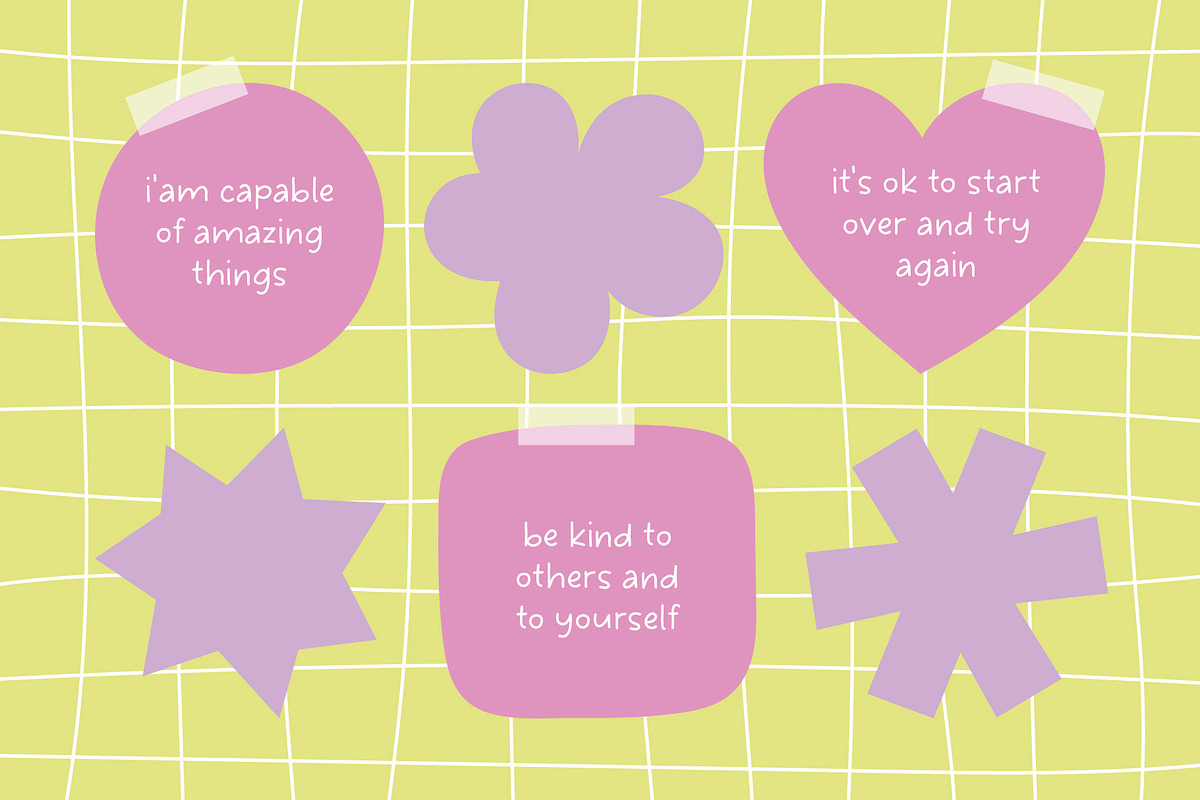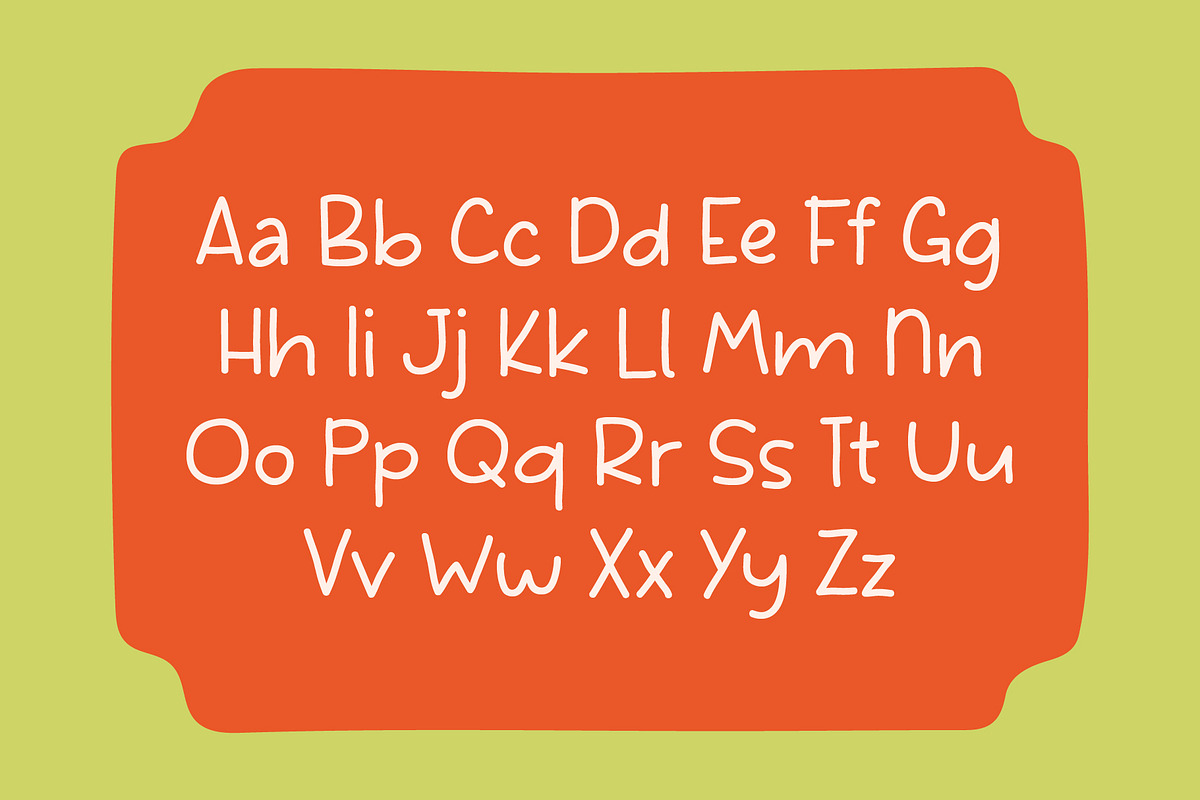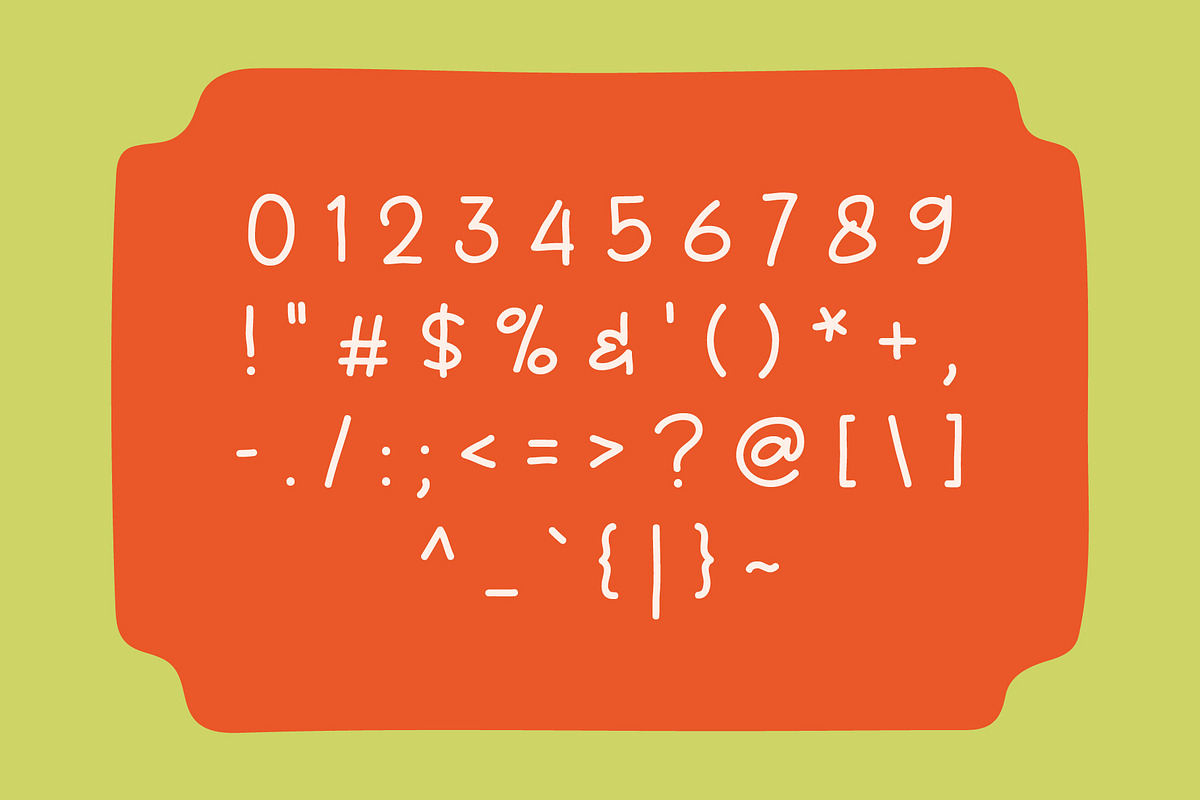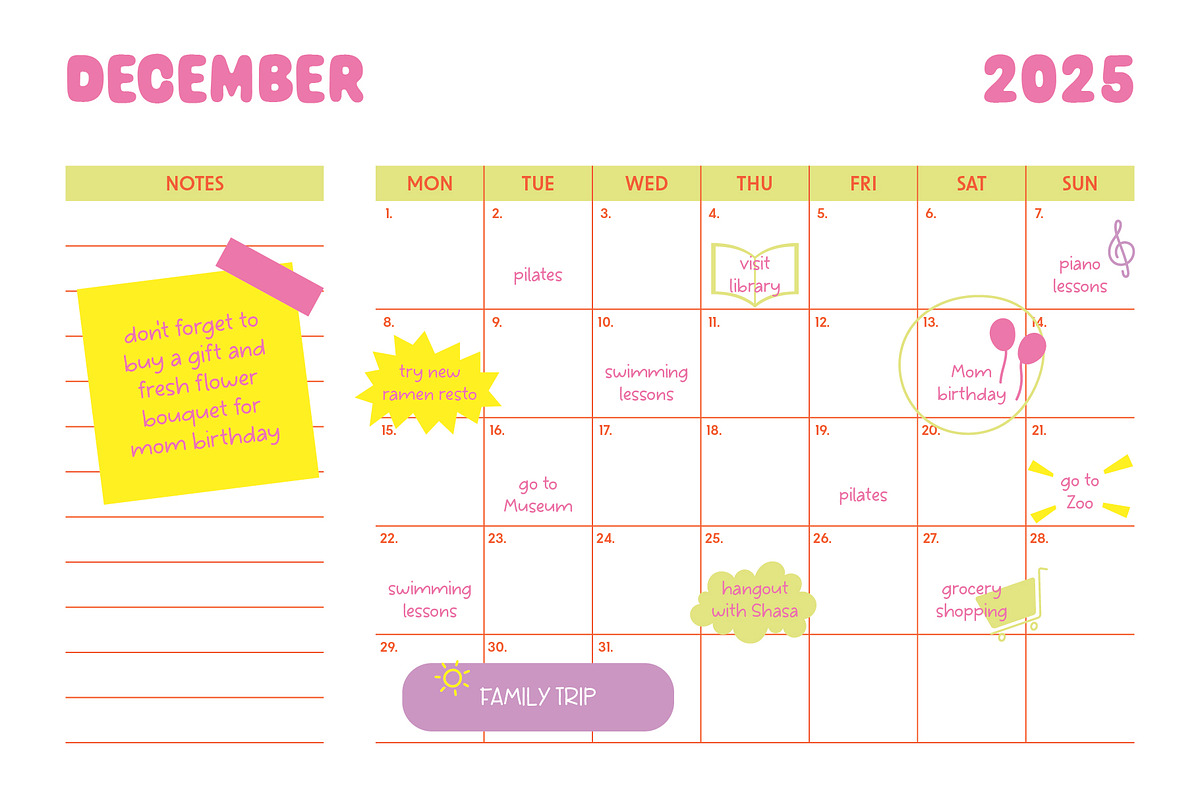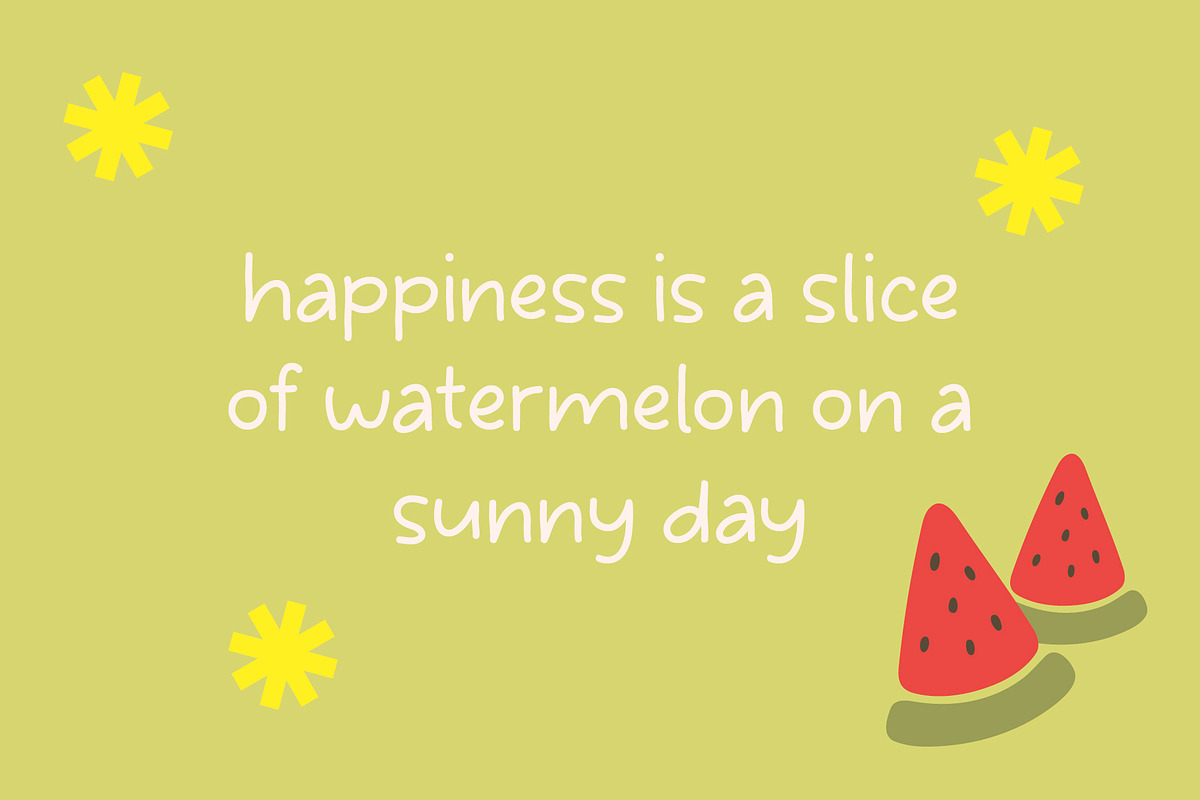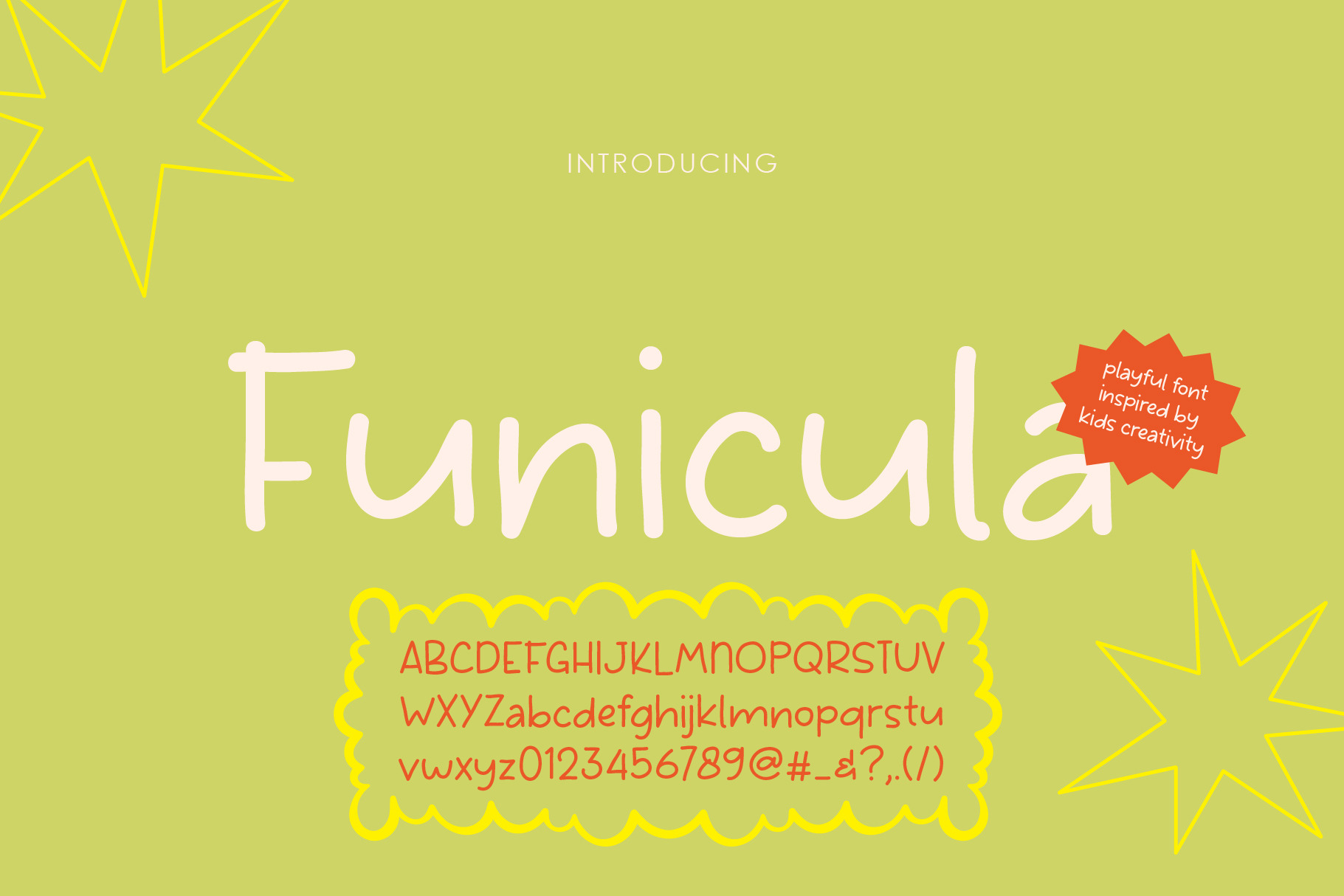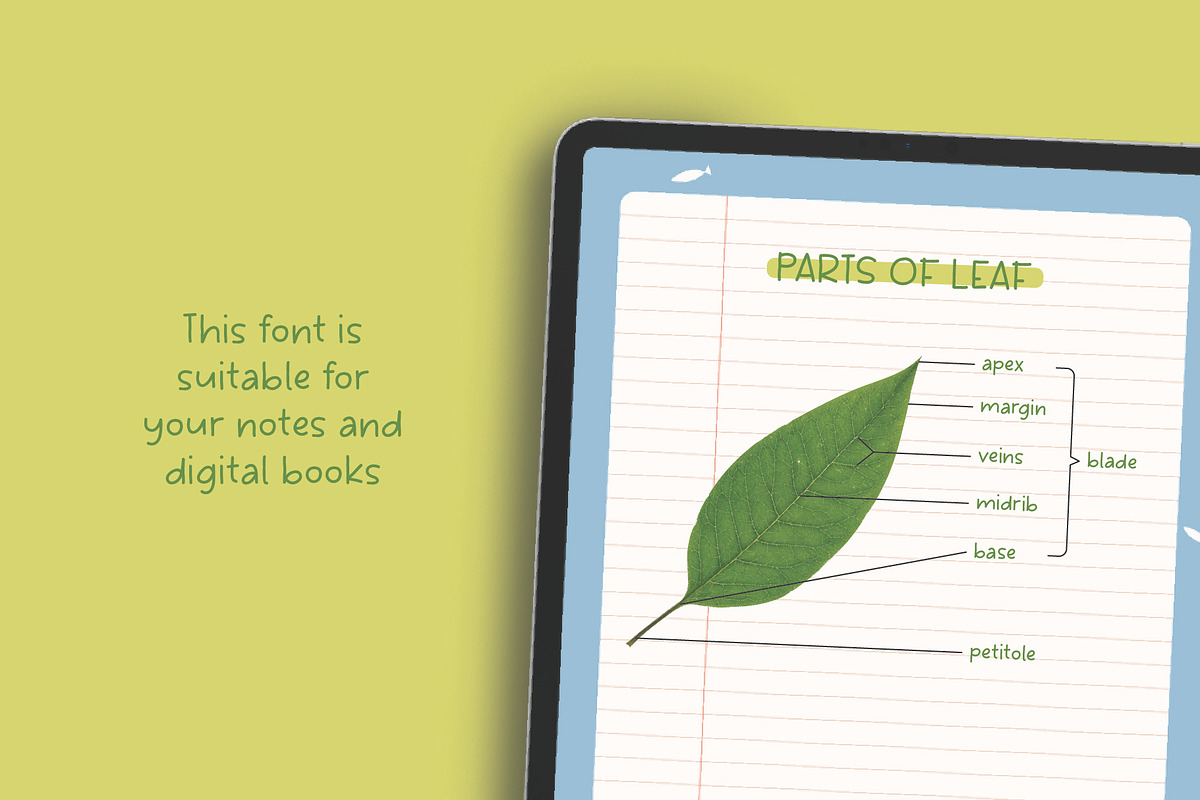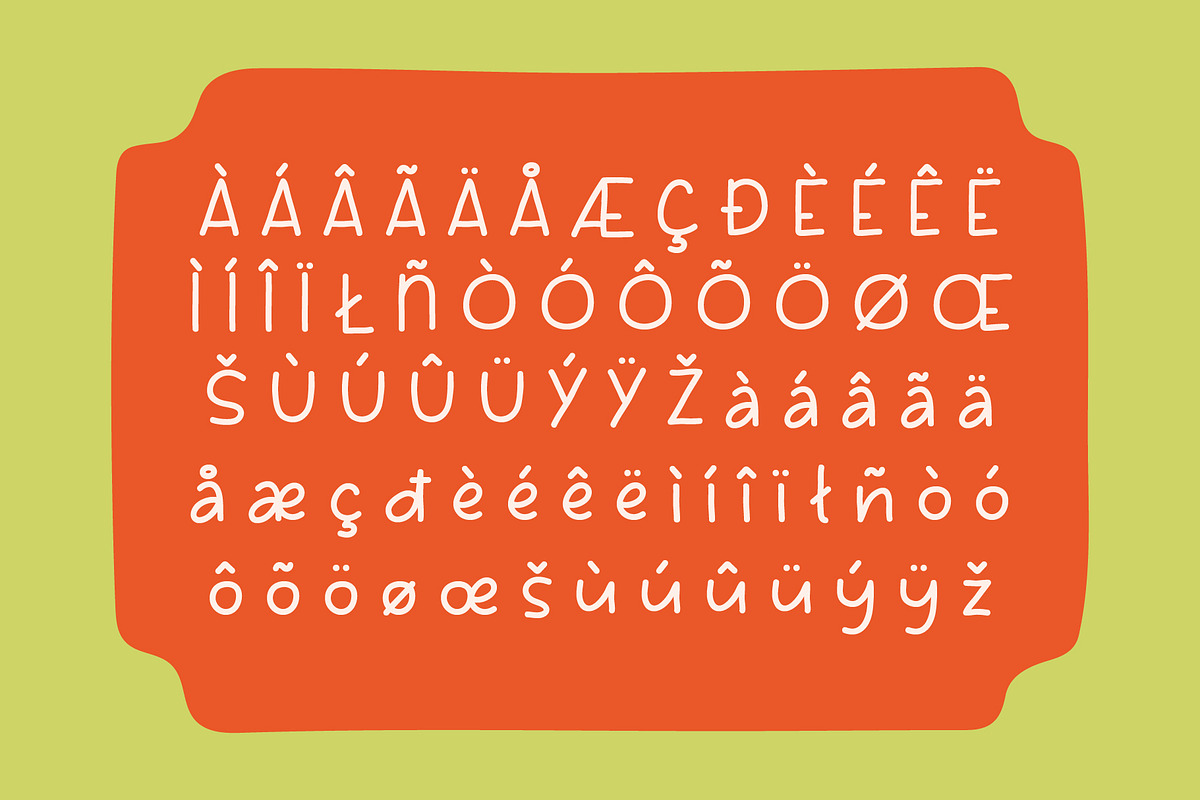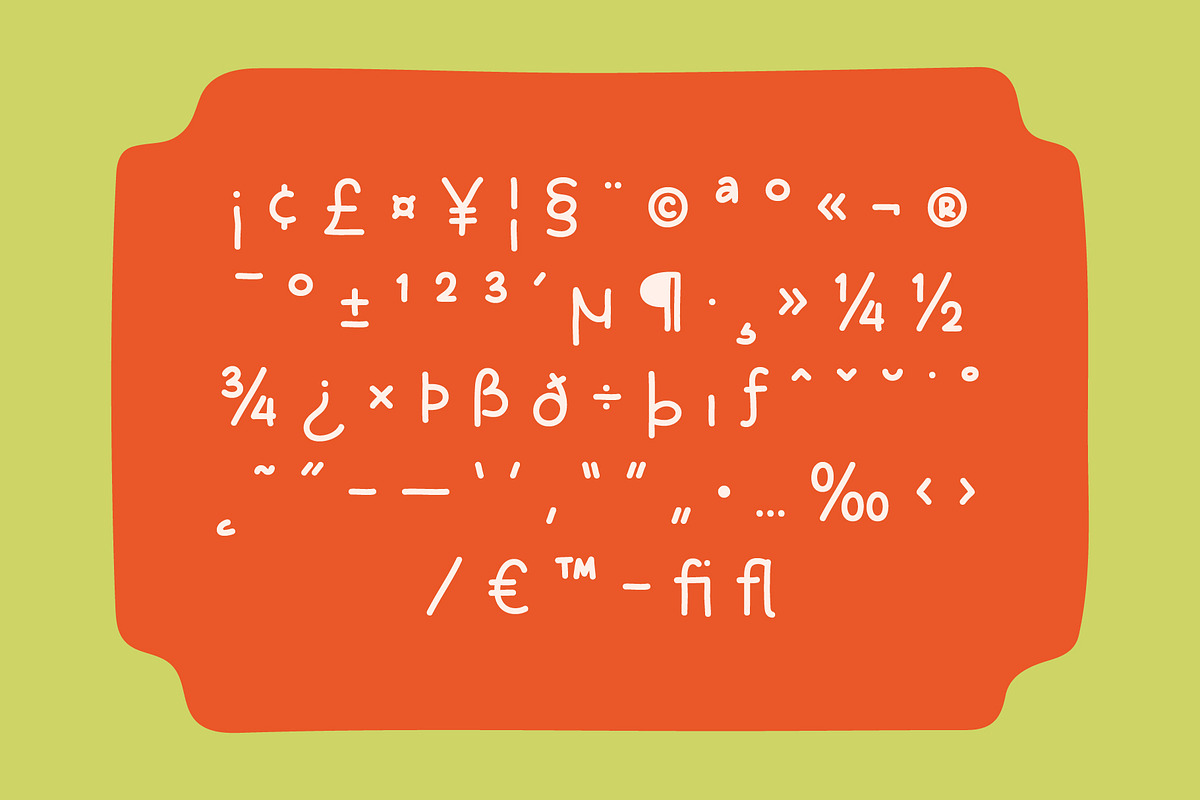
Funicula - Handwritten Font
Say hello to Funicula – a hand-drawn font bursting with playful energy and childlike charm!
Inspired by the joyful creativity of kids, Funicula adds a whimsical touch to any design. Whether you’re working on a children’s book, party invitation, or playful branding project. This font brings a lighthearted and artistic vibe that makes your work stand out.
Funicula includes uppercase and lowercase letters, numbers, and a selection of standard symbols. Moreover, it comes in OTF, TTF, and WOFF formats, making it versatile and easy to use across both print and digital platforms.
Funicula is more than just a font — it’s a celebration of imagination. So, if you’re looking to add a splash of fun to your next design, Funicula is the perfect choice!